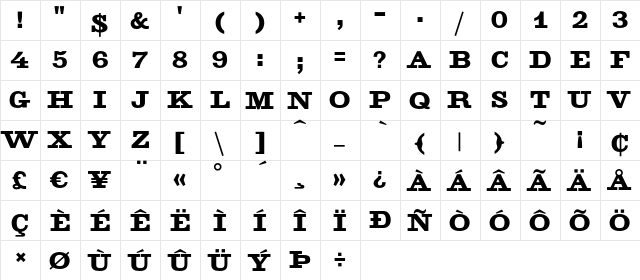
Doric Regular
Design Context for Doric Typeface
Doric is a composed and adaptable typeface that performs quietly and consistently across a wide range of design contexts.